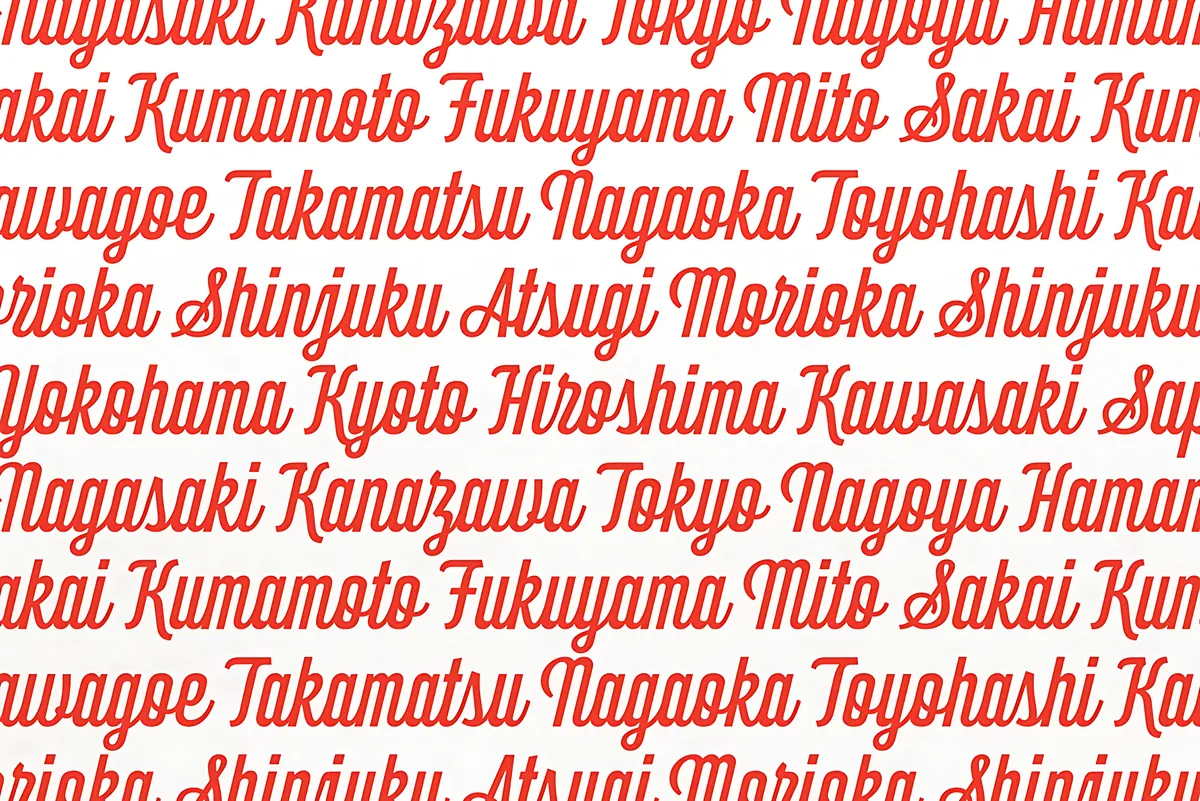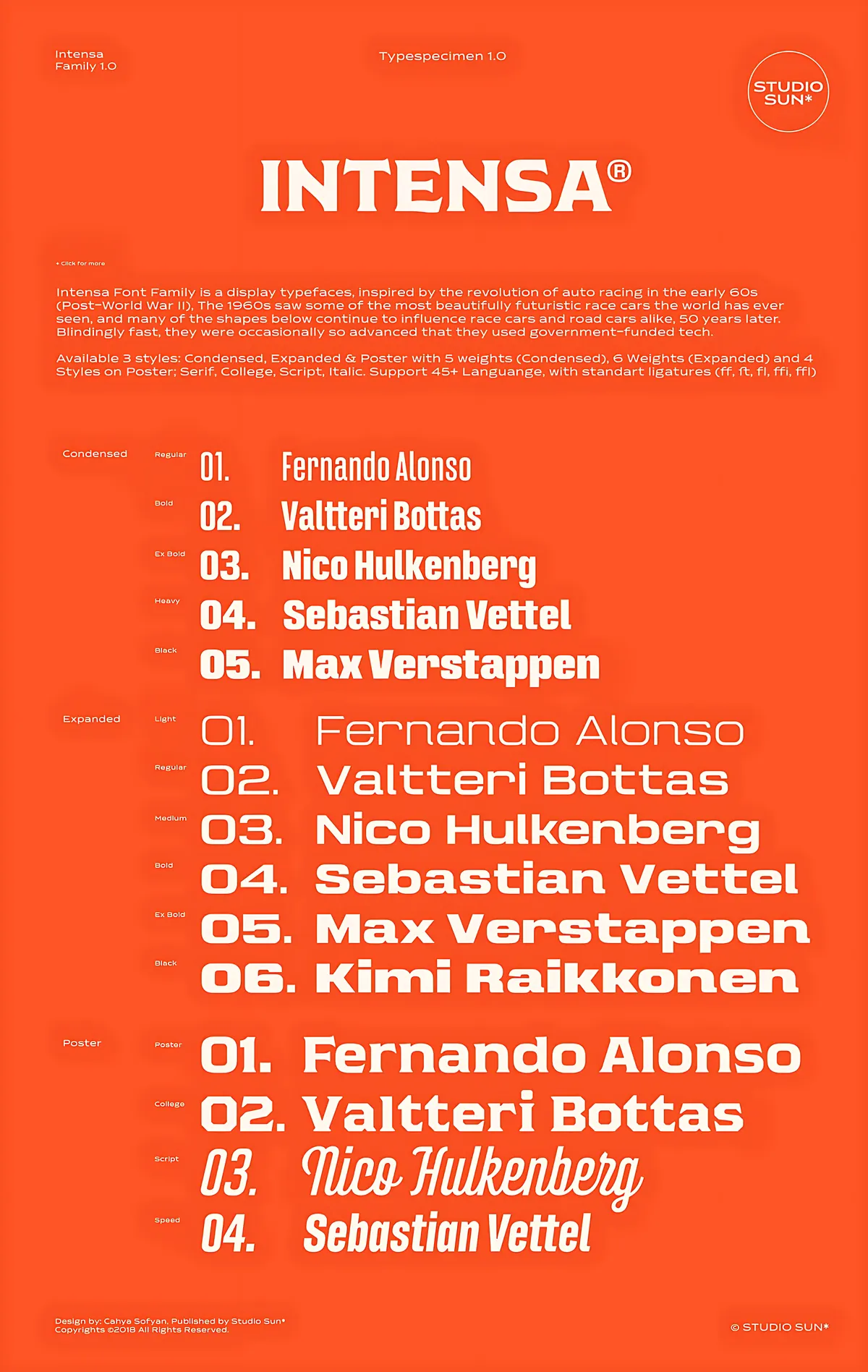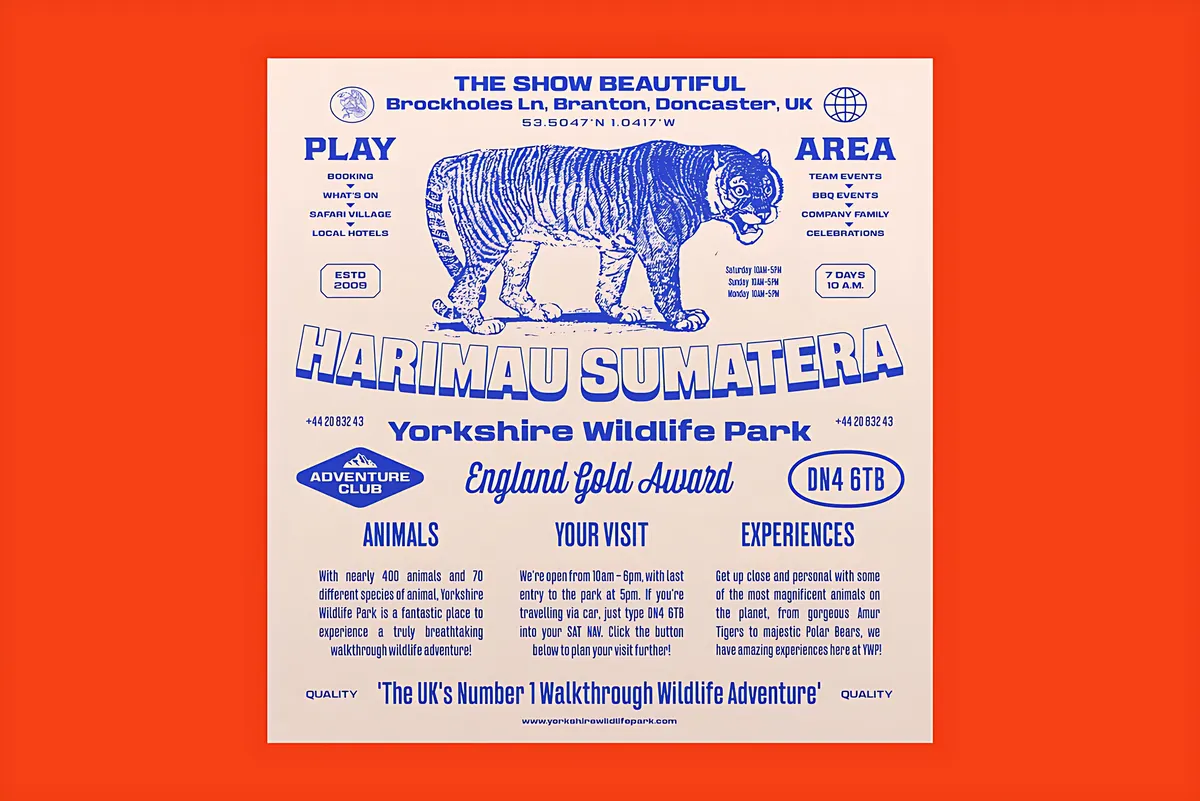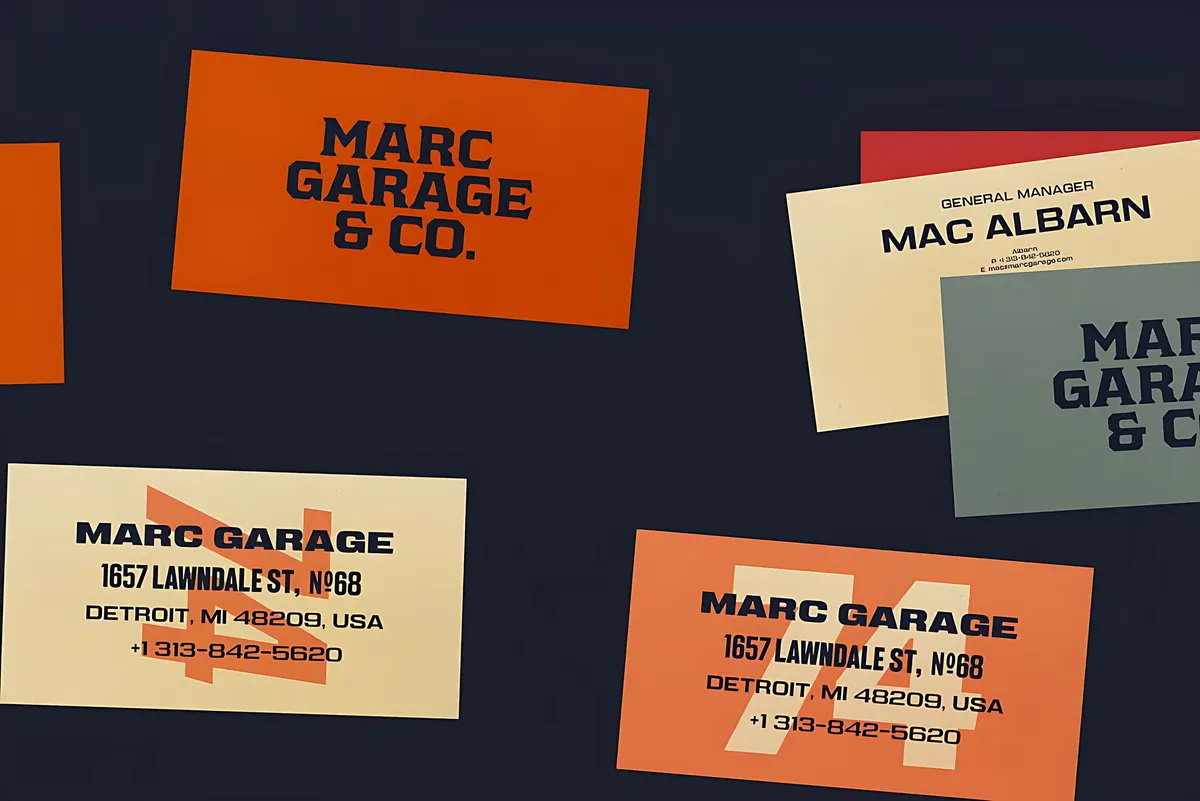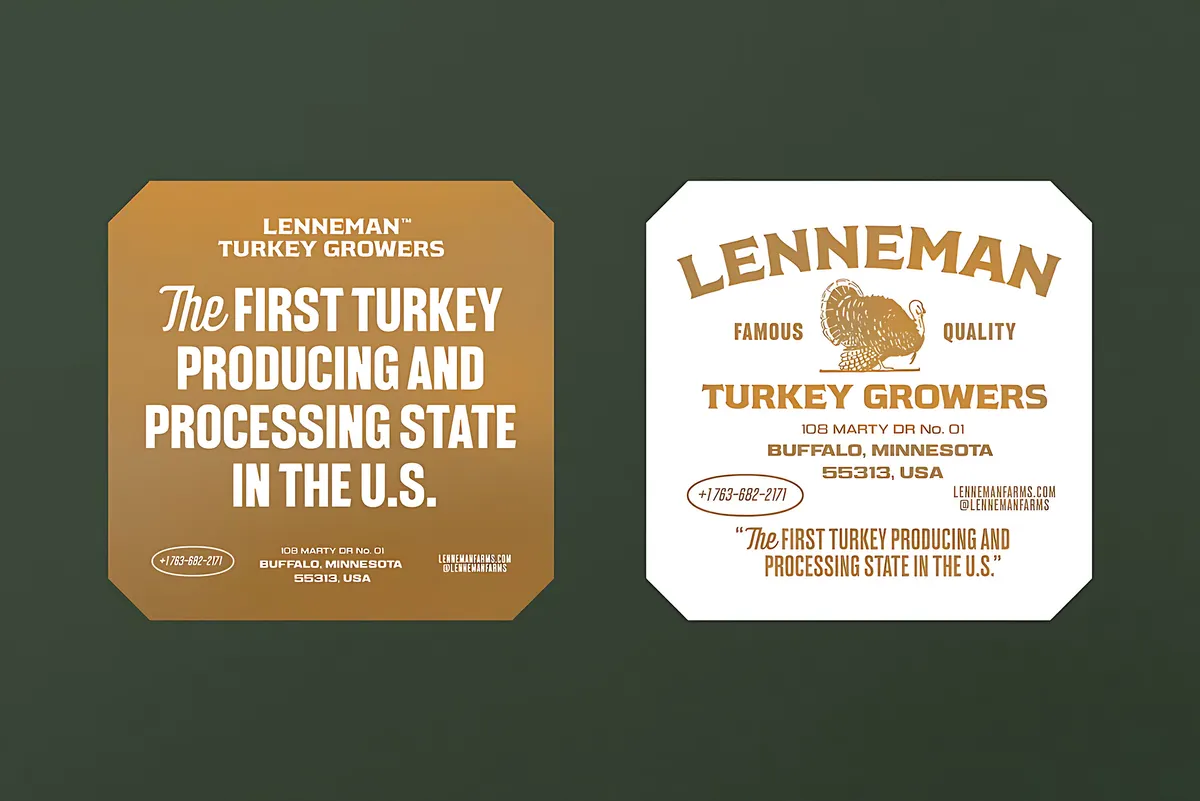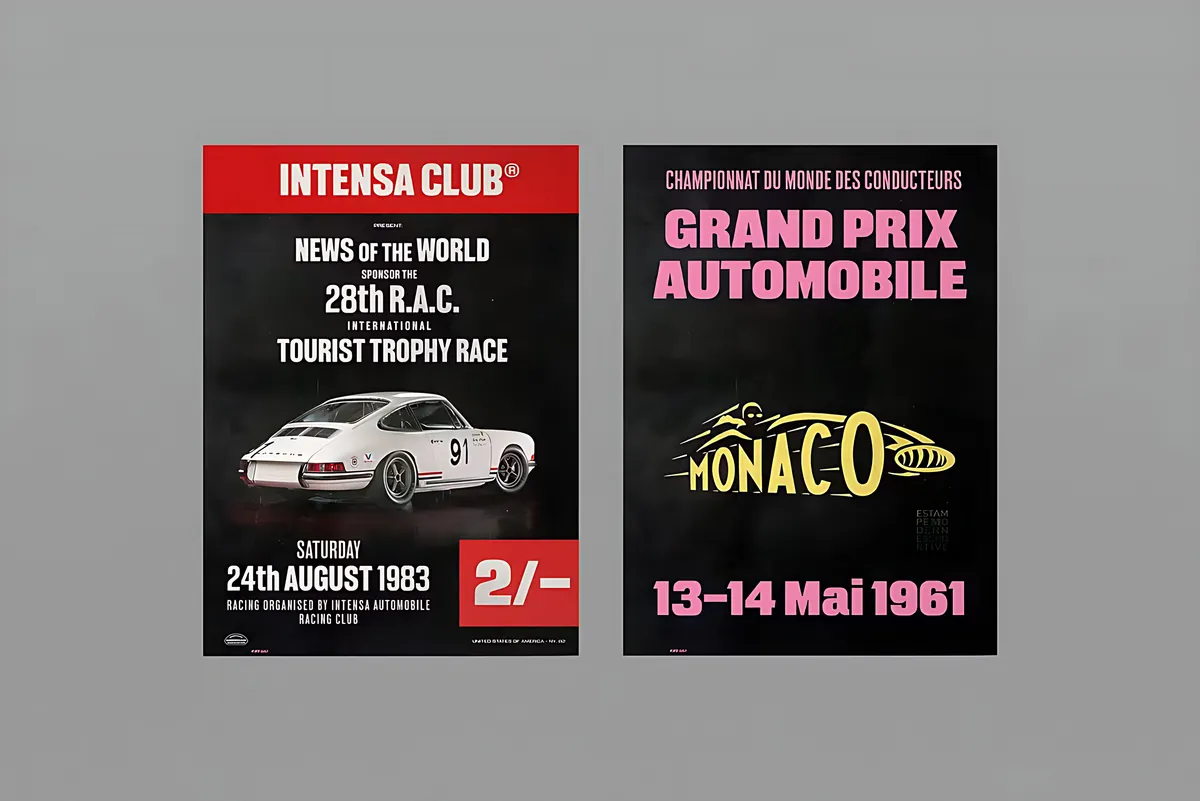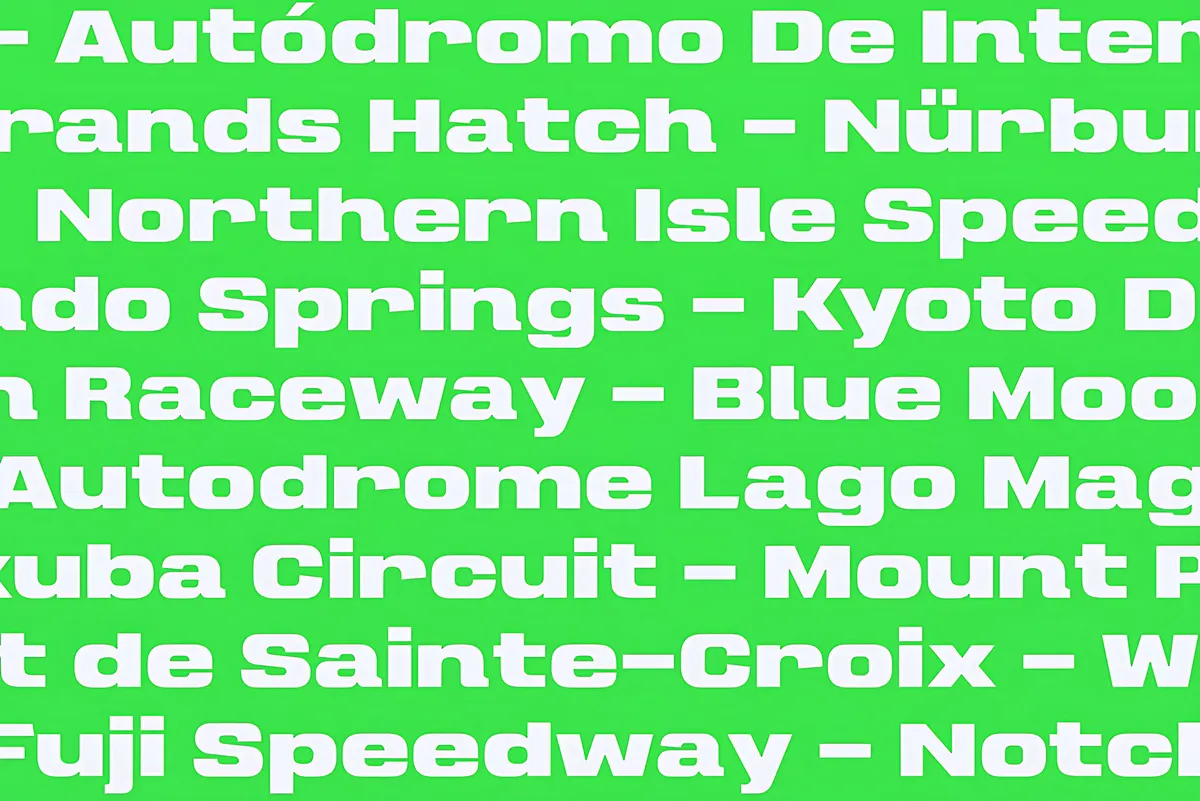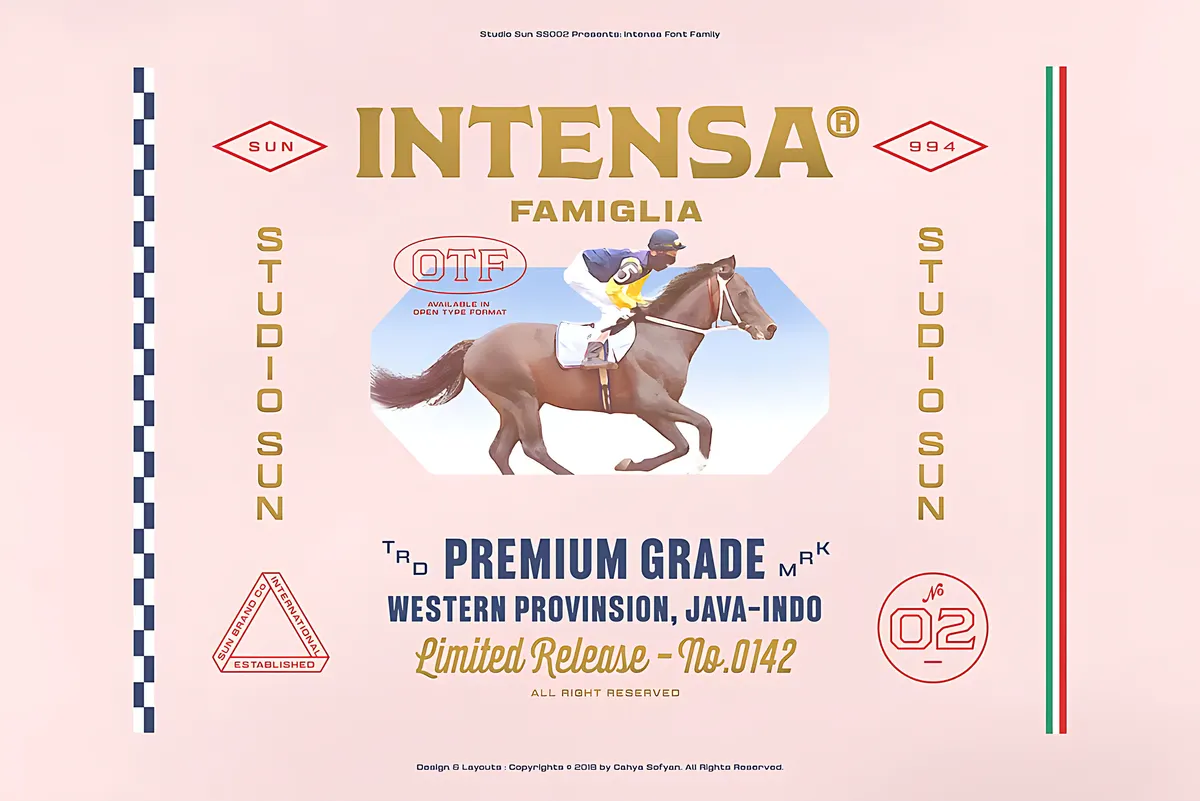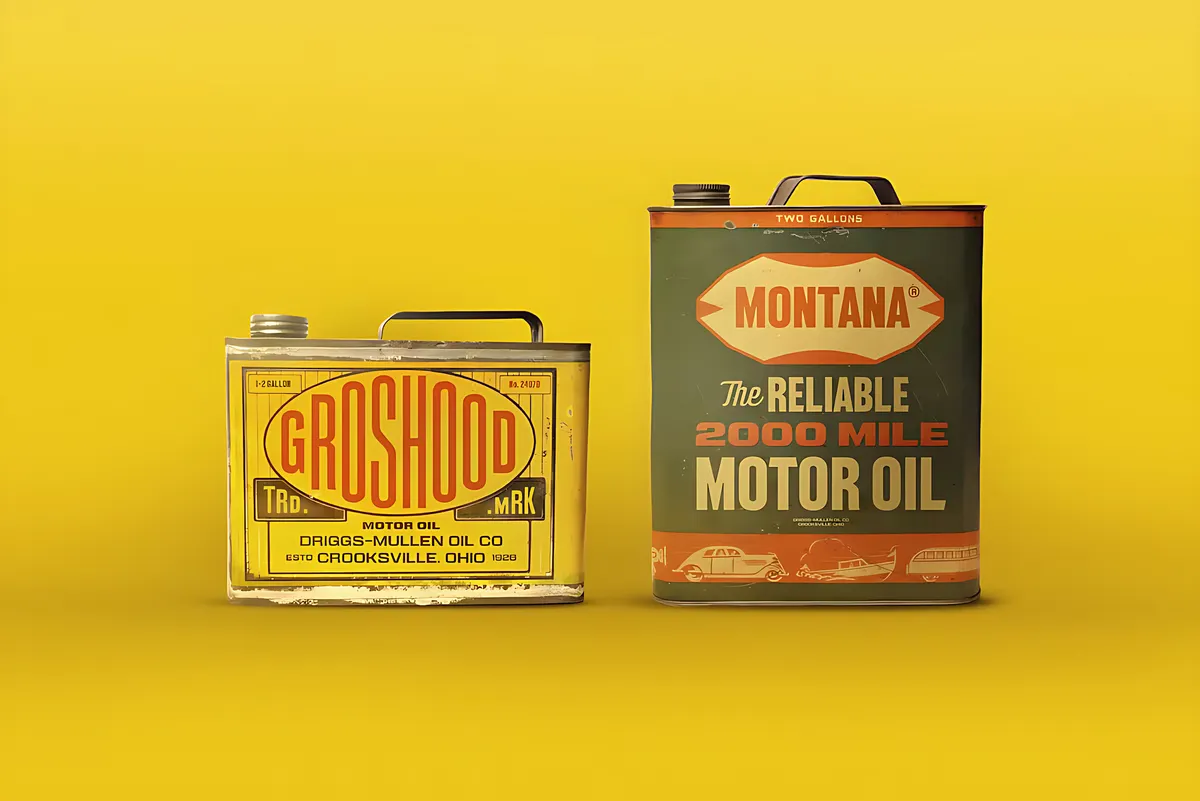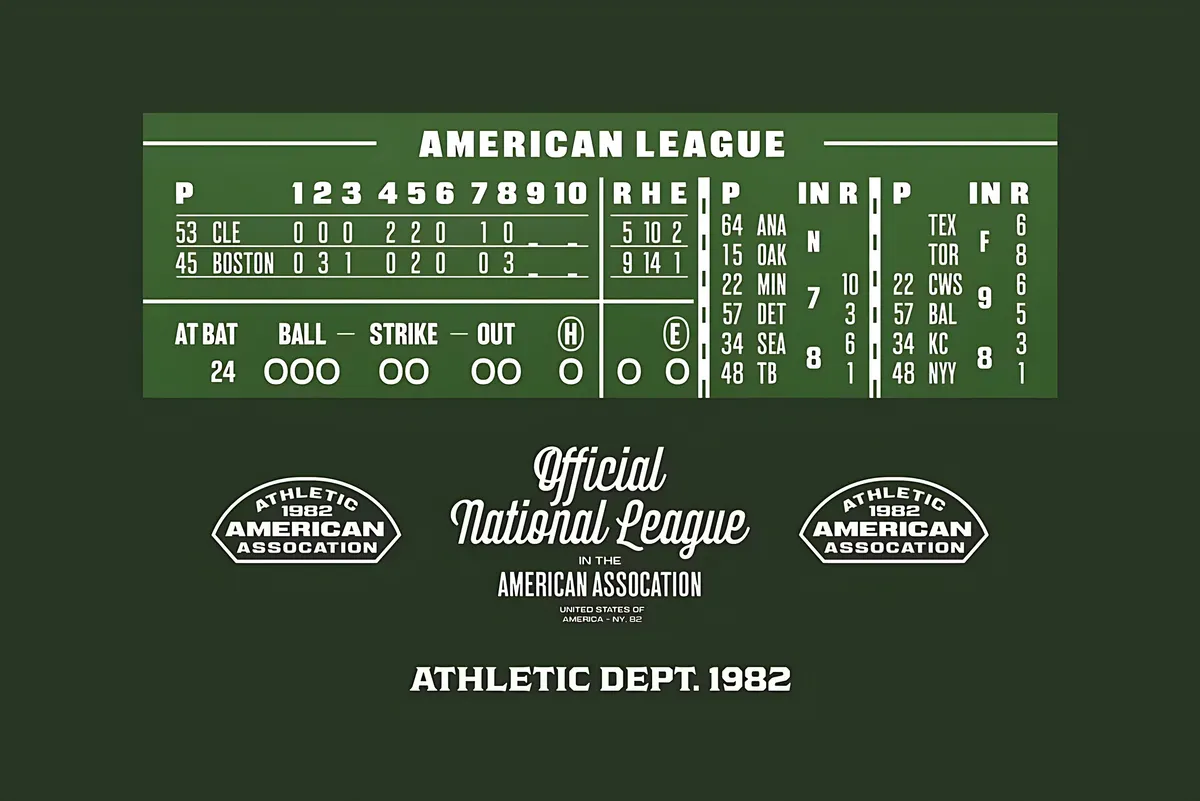
Intensa Font Family
Intensa takes its cues from early-1960s motor racing: pit-board lettering, Grand Prix bills, hand-painted door numbers, and model-kit decal sheets. The text widths are squared off with horizontal contrast, and ink traps are cut into the joints where strokes meet.
Five condensed weights run from Regular to Black for stacked headlines, and six expanded weights widen the same skeleton. Four poster styles finish this sports display font family: a flared display cut, a collegiate serif drawn from American varsity lettering, a chrome-era script, and Speed, the racing italic.
Cahya Sofyan drew the family for layouts that work like a race livery, where one enormous word sits over a stack of small technical print and a two-digit number. The condensed cuts do the shouting; expanded holds result in tables, spec lines, and label copy at small sizes; script and college step in for a sponsor badge or team crest register.
Usage: poster and event graphics, branding, logos, apparel, merch, packaging, labels, and editorial layouts — sports headlines, results tables, feature decks, stat sidebars.
- 15 fonts across Condensed, Expanded & Poster;
- ink traps & horizontal contrast in the Condensed & Expanded widths;
- uppercase & lowercase;
- numerals & punctuation;
- standard ligatures (ff, ft, fl, ffi, ffl);
- 450+ glyphs;
- 75+ Latin-based languages.